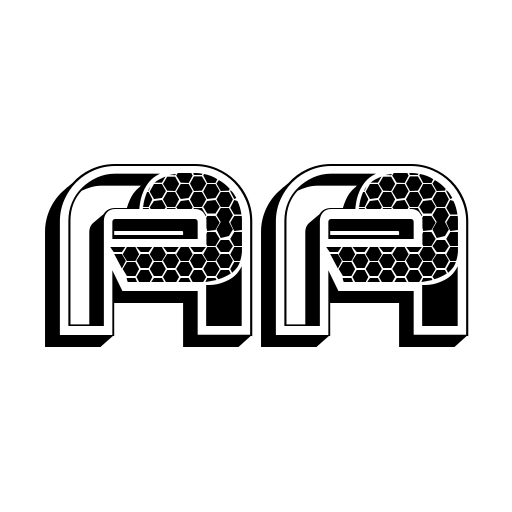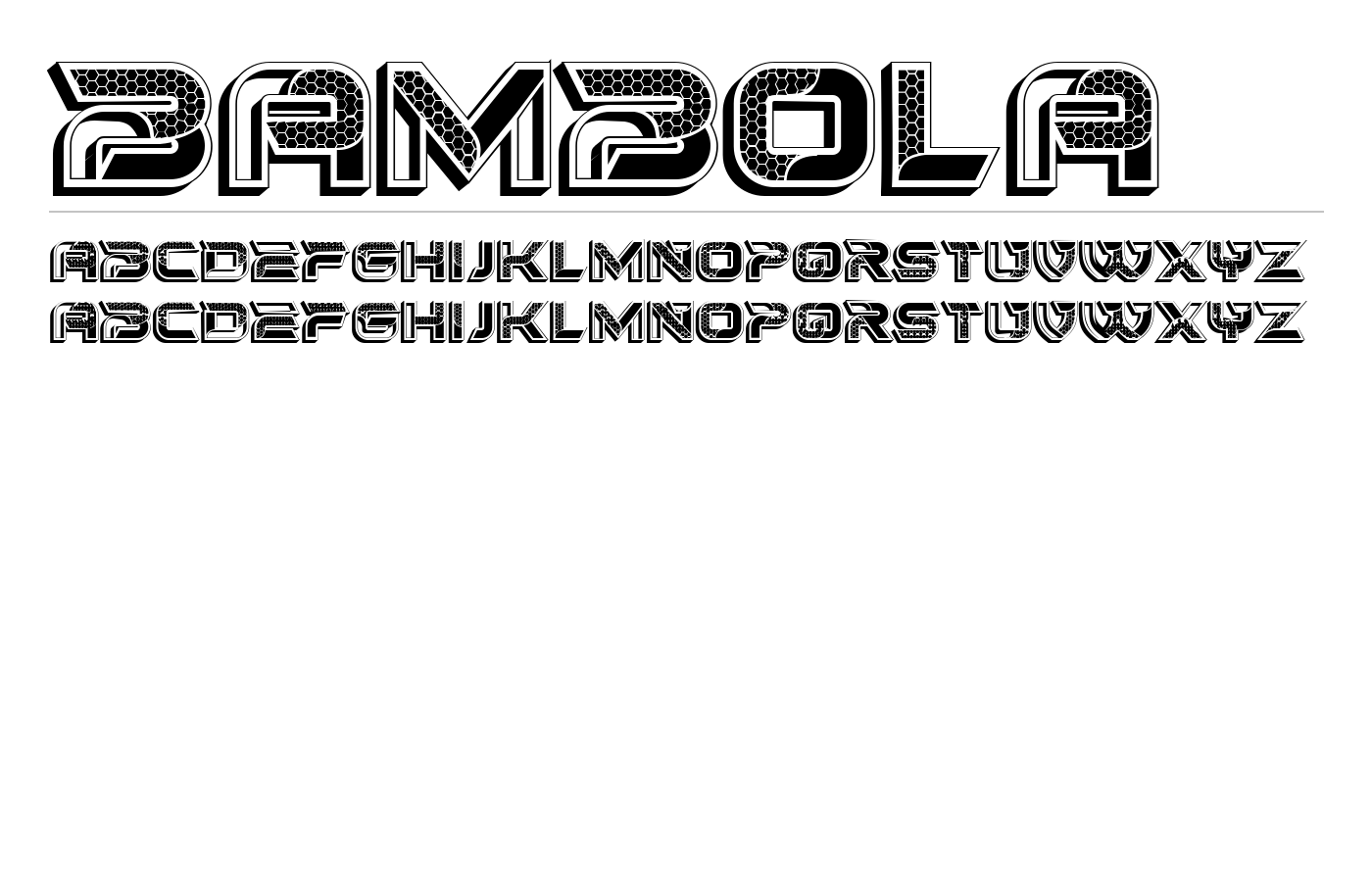
Bambola is a bold, geometric sans serif font with a futuristic and playful vibe, featuring strong 3D shadow effects and honeycomb textures that add depth and visual interest. Its wide, uppercase letterforms make it perfect for eye-catching headlines, logos, and posters, especially in creative, tech, or entertainment branding where a modern, dynamic look is desired. This font stands out with its unique detailing, giving designs a lively and innovative personality.
Bambola Font
About Bambola Font
| Font family | Bambola Font |